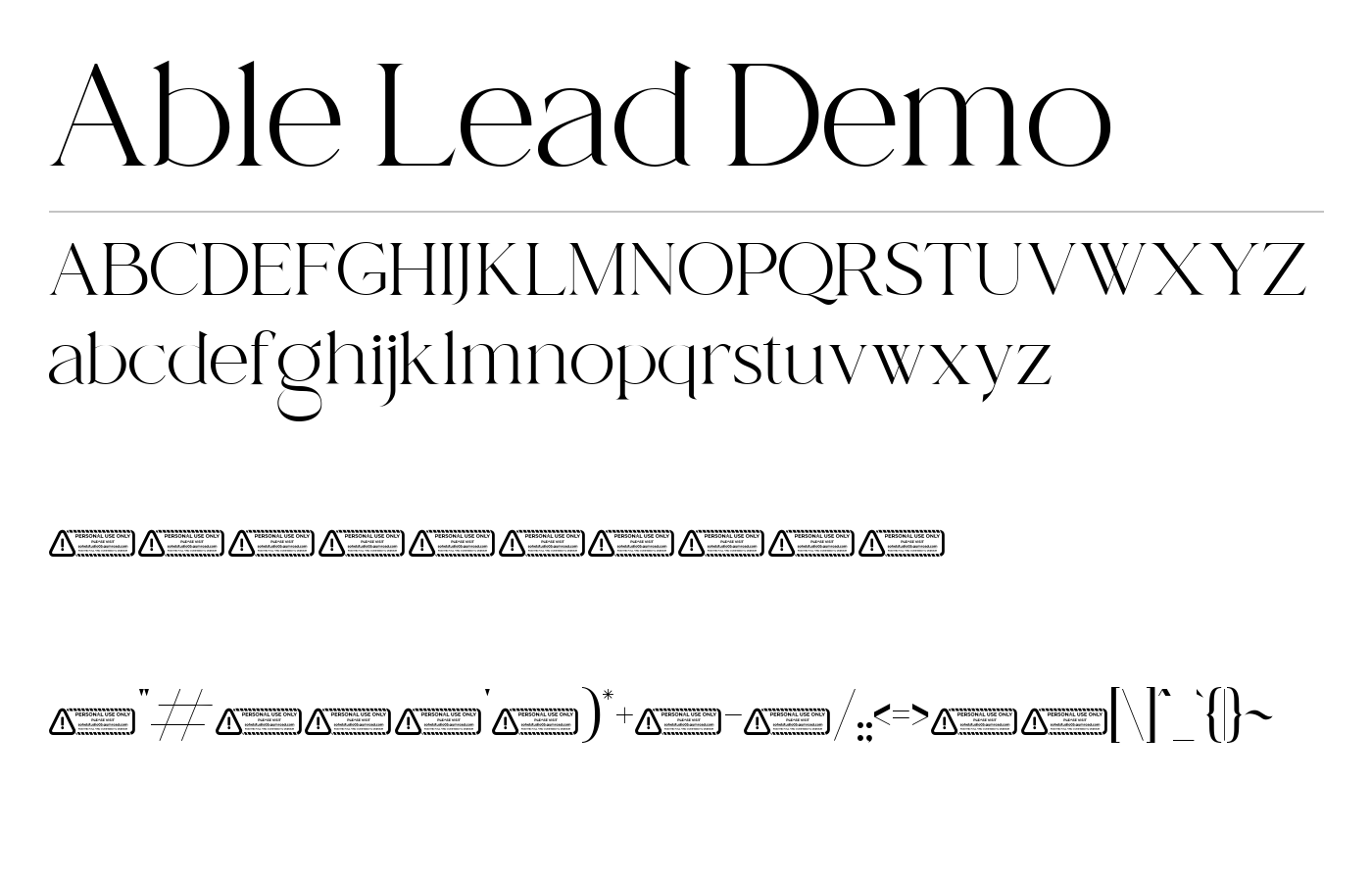
Able Lead Demo is a refined serif font with a modern Didone style, featuring high contrast between thick and thin strokes and delicate, sharp serifs. Its elegant letterforms with distinctive curves and a sleek, airy feel make it perfect for luxury branding, editorial headlines, and sophisticated design projects where a touch of class and modernity is desired.
Able Lead Demo Font
About Able Lead Demo Font